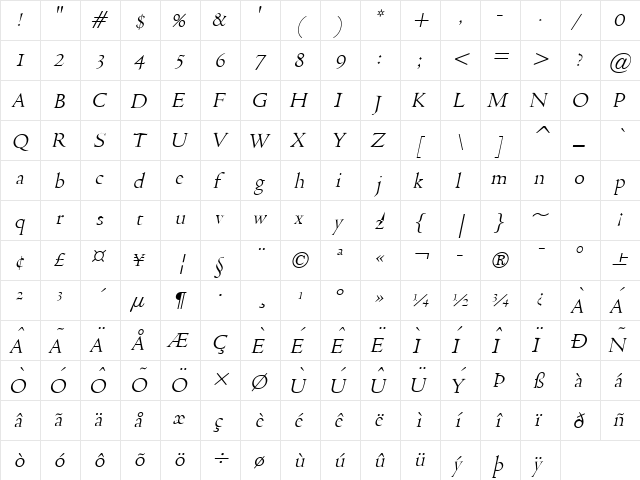
Viviene Italic Font Preview
Viviene Italic
Viviene Italic Font Details
Design Context for Viviene Typeface
Viviene offers clean, dependable letterforms without strong stylistic allegiance, making it a practical choice for designers who need flexibility. The slanted form adds forward momentum and visual energy.
Pro Tip: Try Viviene for annotation and caption copy alongside an upright companion — the contrast in angle creates a dynamic but ordered typographic system.